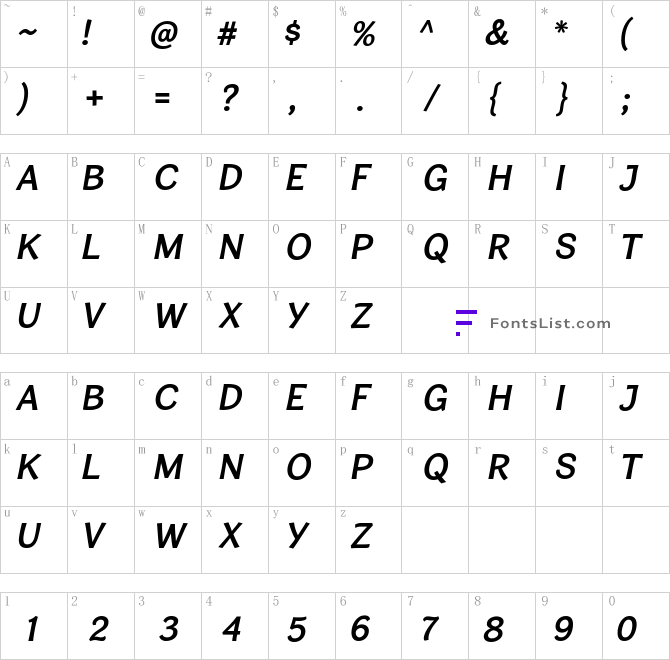
- Font Name:Cardigan Titling Sb
CardiganTitlingSb-Italic.ttf is a very beautiful artistic font, CardiganTitlingSb-Italic.ttf is widely used in the design and printing of various books and pictures,CardiganTitlingSb-Italic.ttf has a strong visual impact,CardiganTitlingSb-Italic.ttf is a commonly used font in newspapers, magazines and books, and is used in posters, e-commerce Poster design, store design, logo design, font design and other fields.CardiganTitlingSb-Italic.